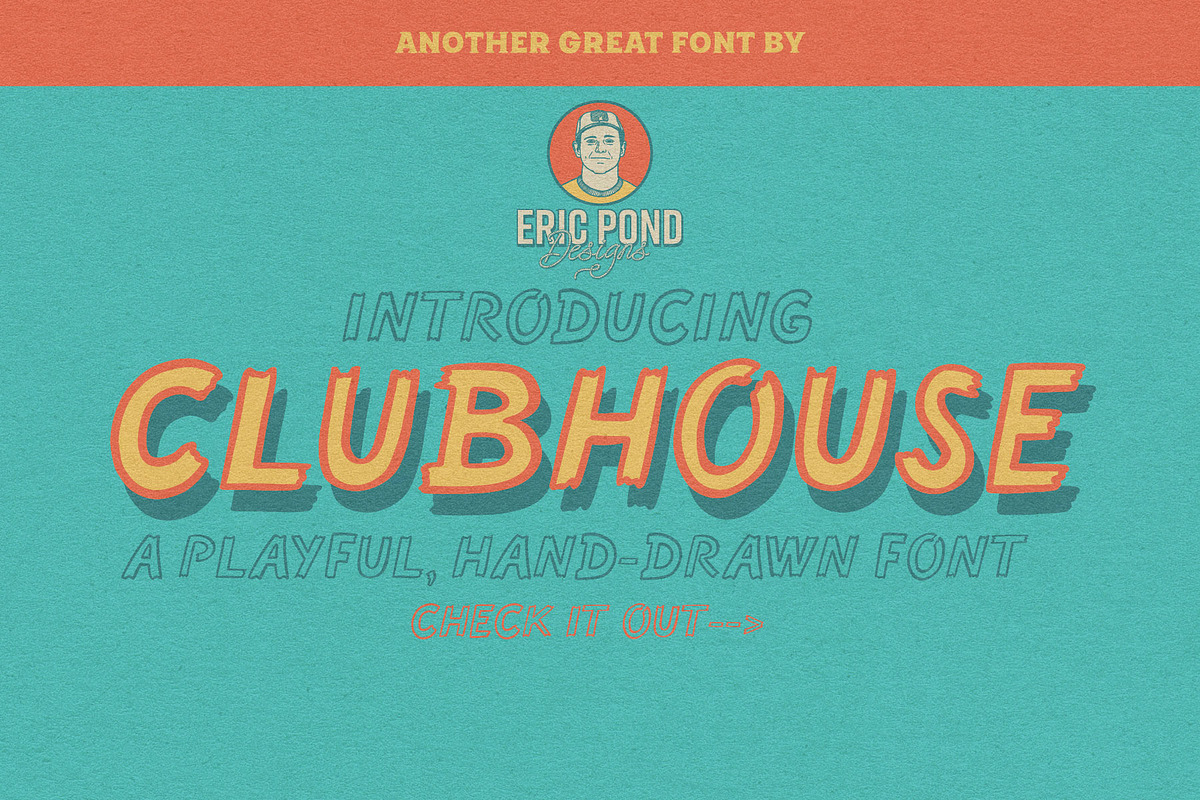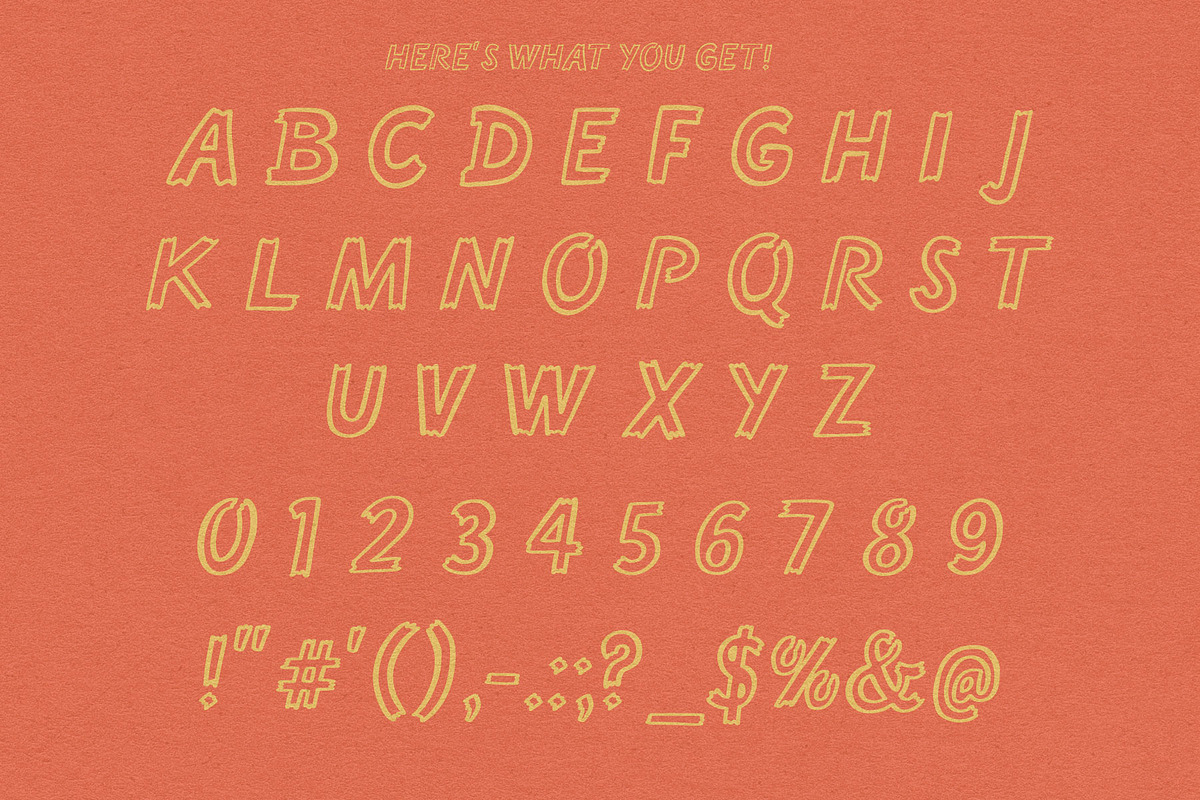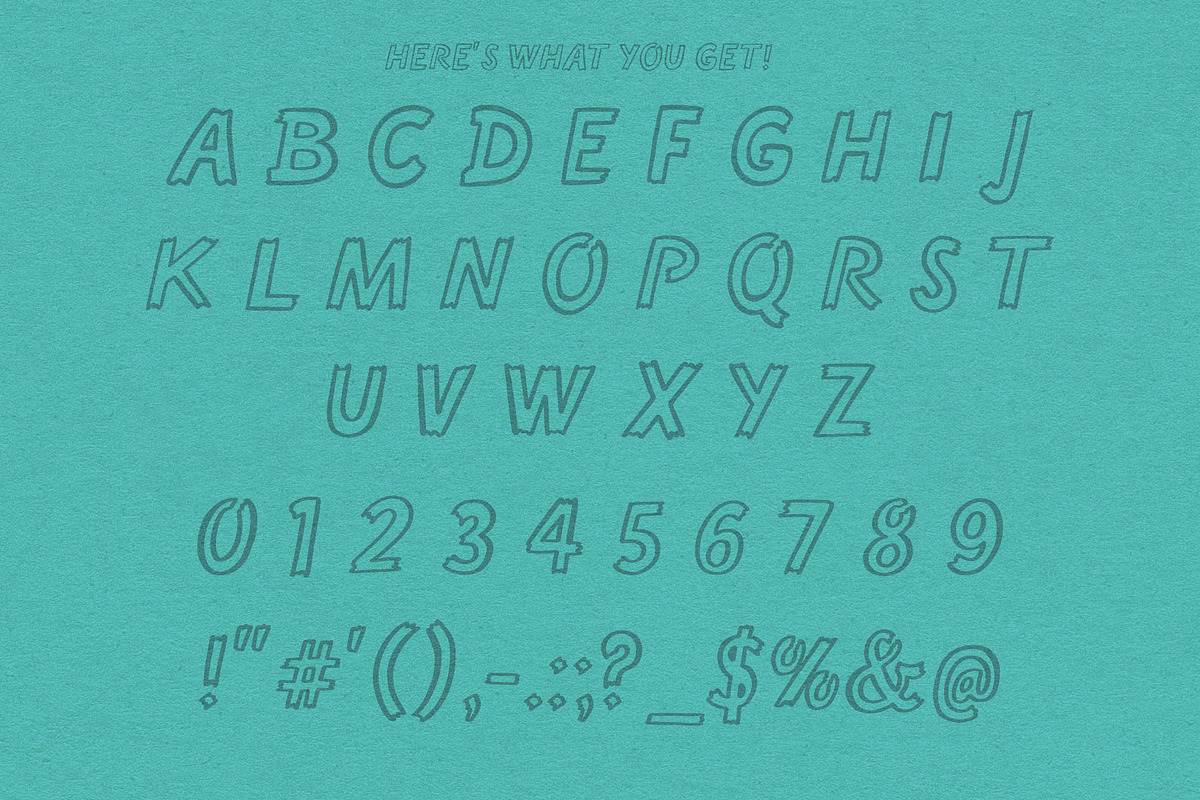
Clubhouse by Eric Pond Designs
Introducing Clubhouse, a playful, hand-drawn font by Eric Pond Designs. This font features uppercase, numbers and some punctuation.